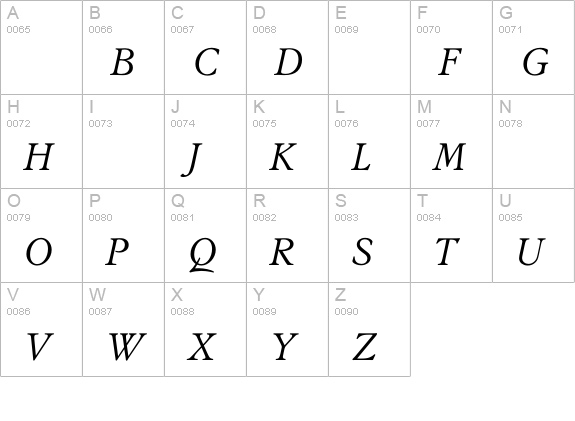
StanhopeLightItalic Font Details
StanhopeLightItalic font is a beautifully crafted typeface that exudes elegance and sophistication. Its delicate and flowing curves give it a sense of grace and refinement, making it perfect for projects that require a touch of class. With its slanted and italicized design, StanhopeLightItalic font adds a subtle sense of movement and dynamism to any text. It effortlessly captures attention and leaves a lasting impression on the reader. One of the most remarkable features of StanhopeLightItalic font is that it is free. Yes, you read that right! This exceptional font is freely available to download at FontsMarket.com. Now you can enhance your designs with this exquisite typeface without any cost. Whether you are creating invitations, branding materials, or editorial designs, StanhopeLightItalic font will elevate your work to new heights. Its unique combination of elegance and versatility ensures that it can be used in a variety of design projects, from formal to casual. With its timeless appeal, StanhopeLightItalic font stands out from the crowd and adds a touch of sophistication to any design. Its subtle yet impactful presence is sure to leave a lasting impression on your audience. So why wait? Head over to FontsMarket.com and download StanhopeLightItalic font for free now. Transform your designs and let this remarkable typeface bring a touch of elegance to your work.